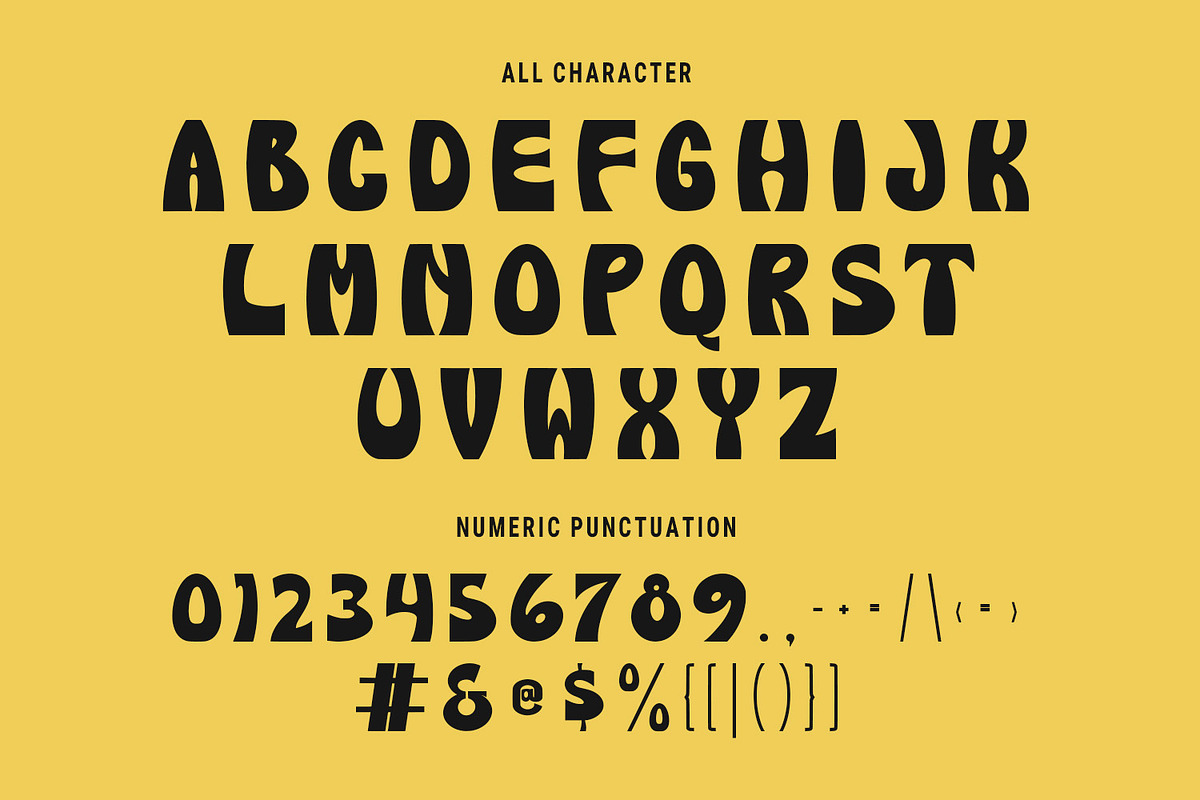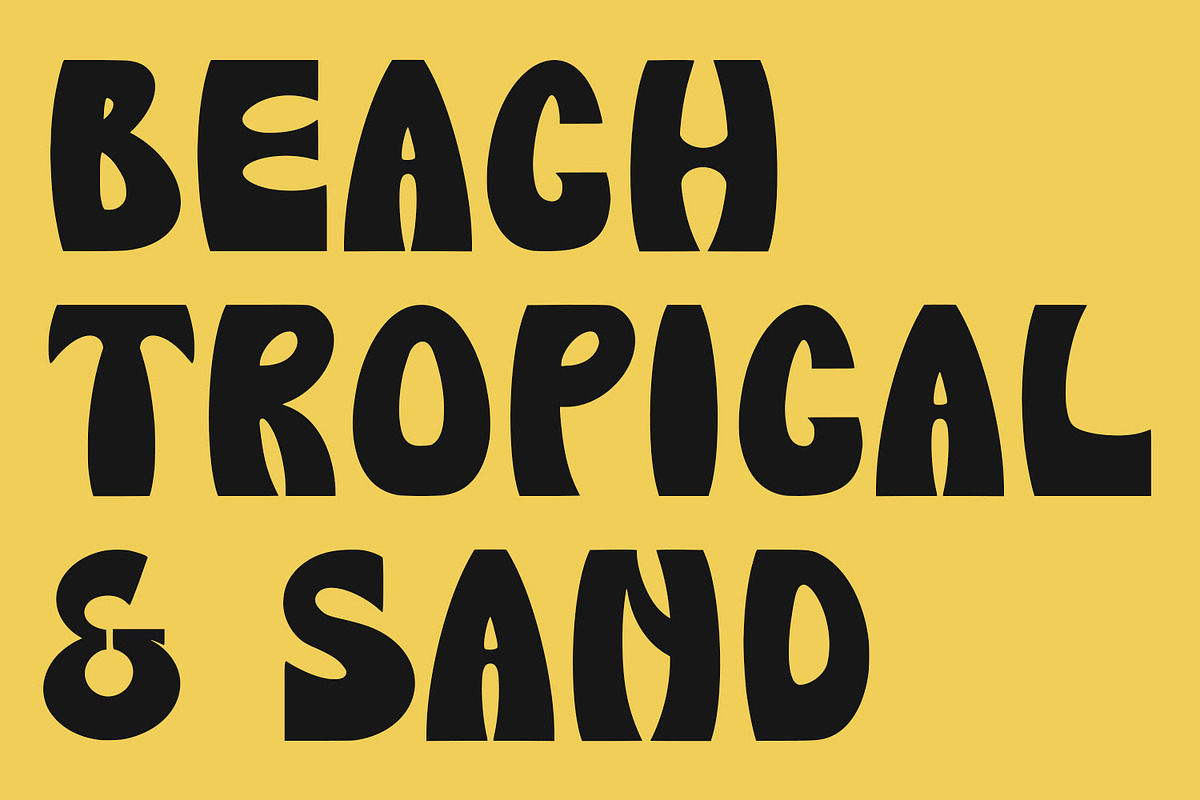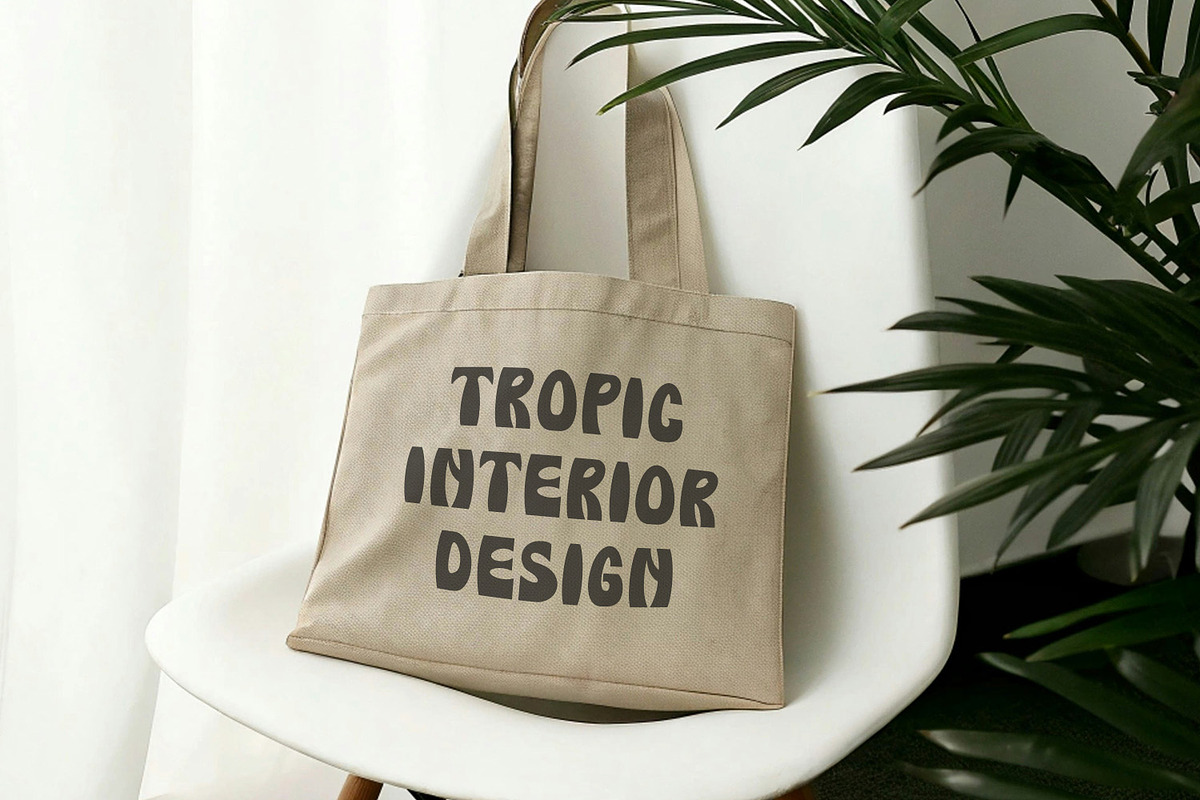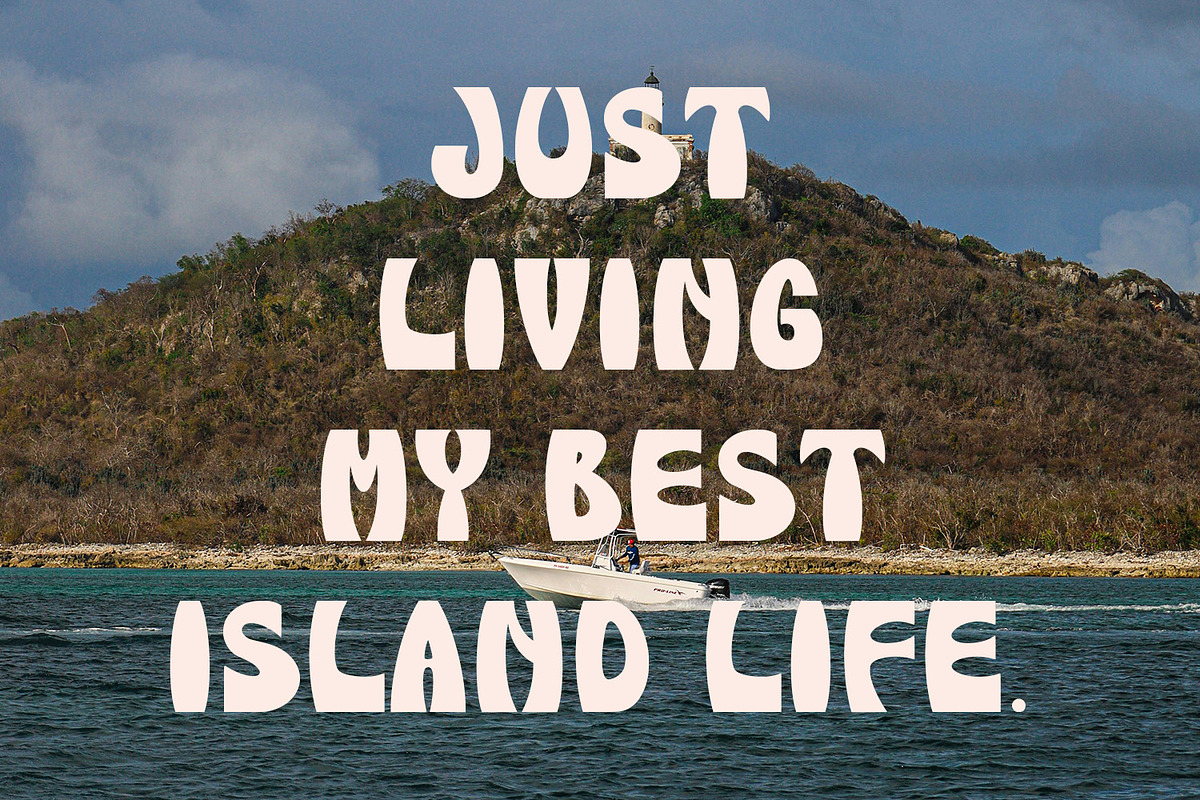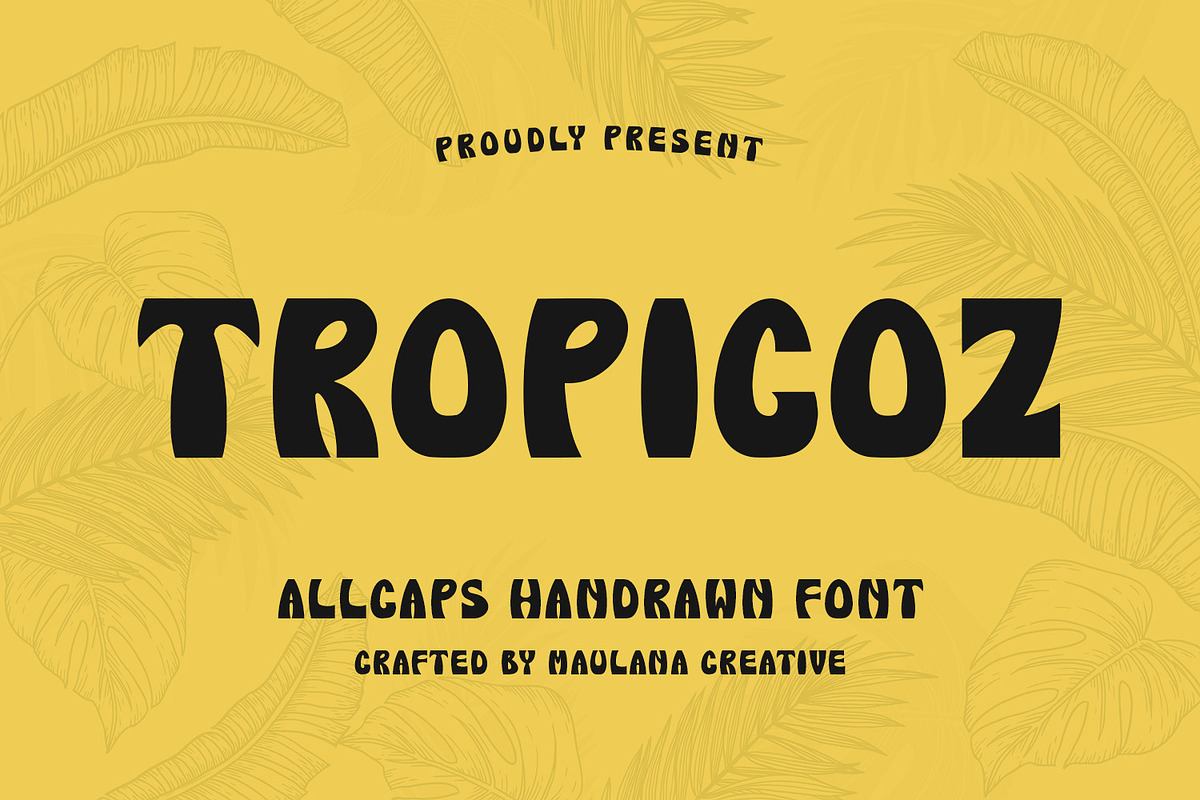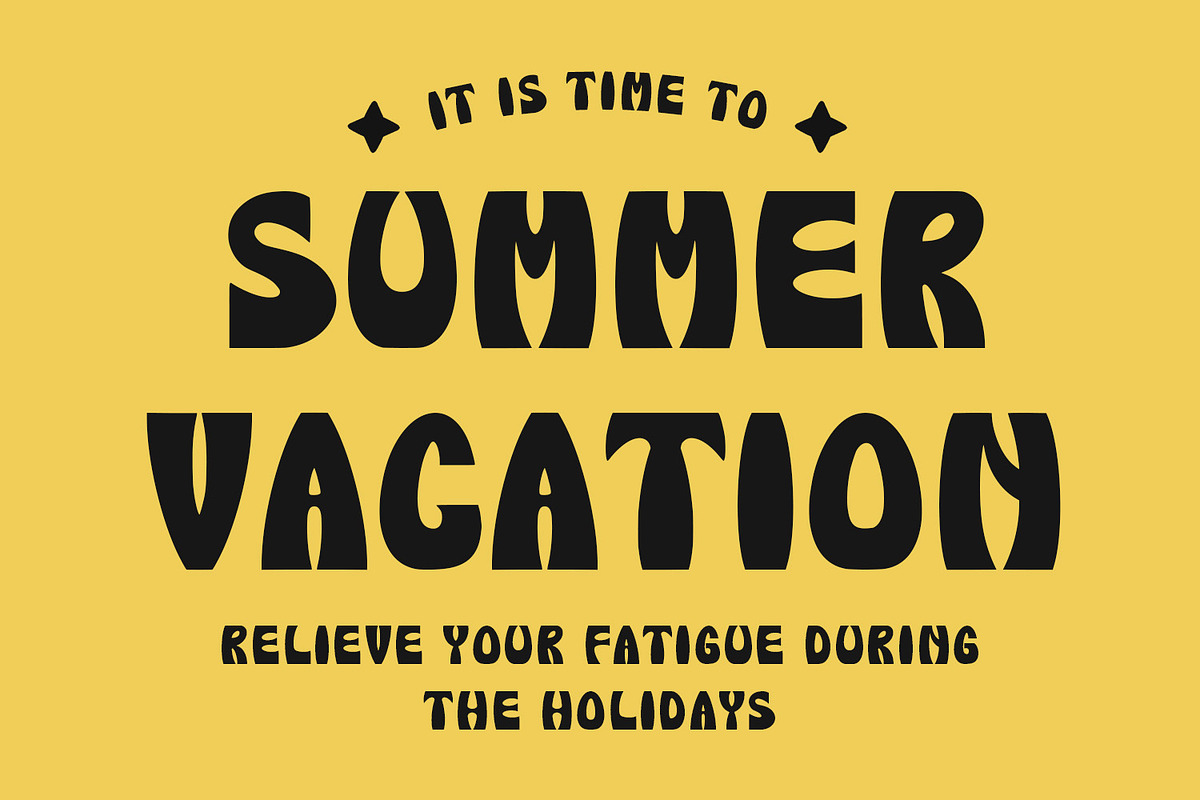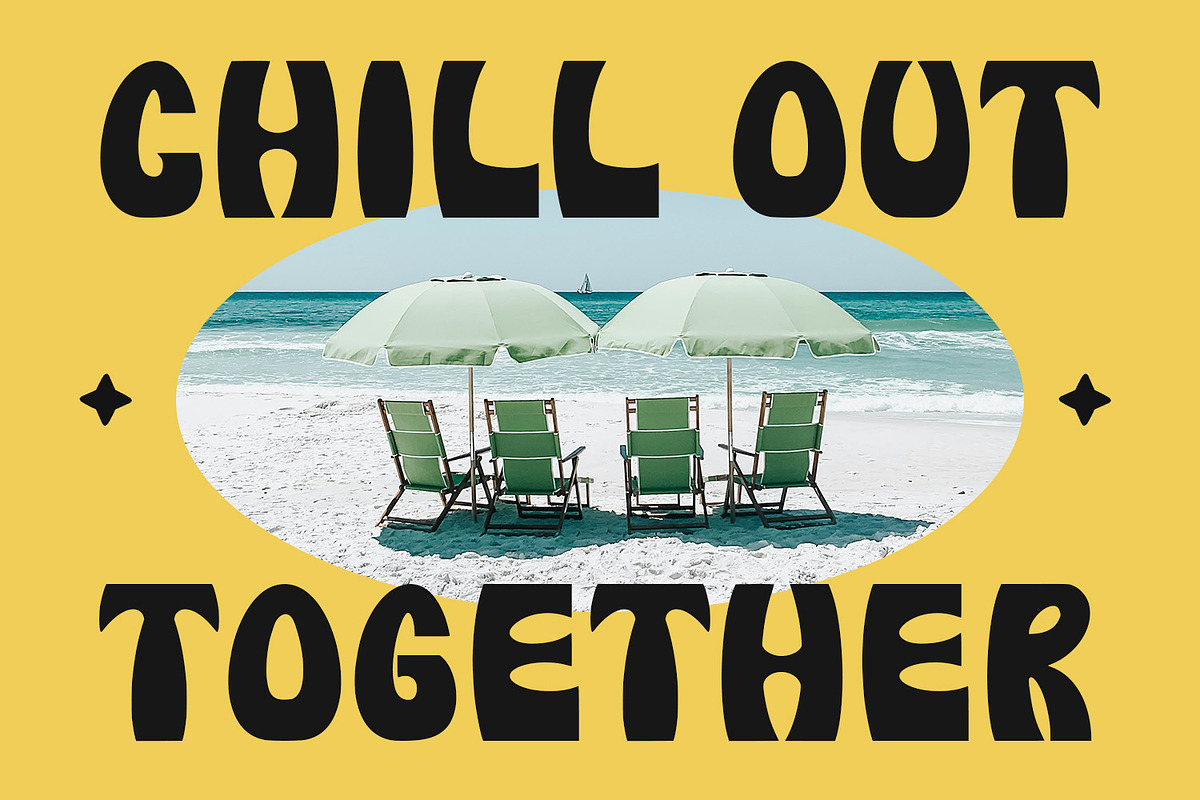
Tropicoz Allcaps Handrawn Font
Tropicoz is a allcaps handrawn style display font. Fun character awesome for seasonal design. To give you an extra creative work. Tropicoz font support multilingual more than 100+ language. This font is good for logo design, Social media, Movie Titles, Books Titles, a short text even a long text letter and good for your secondary text font with sans or serif. Make a stunning work with Tropicoz font.